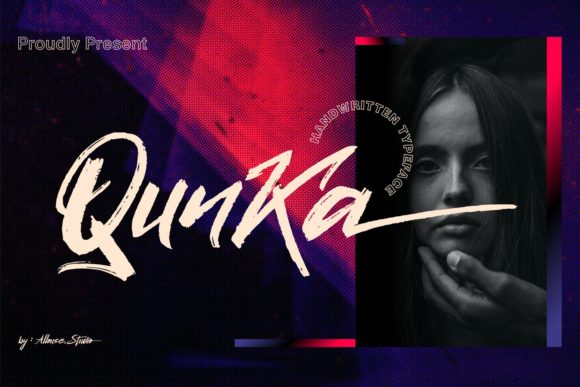
Unleash the Splendor of Your Designs with Qunka Font: A Timeless Handwritten Masterpiece
In a world clamoring for distinction, your designs deserve a voice that resonates with individuality and timeless charm. Enter Qunka Font, a brushed and dramatically alluring handwritten font that will ignite your creativity and leave an indelible mark on your audience.
Qunka's captivating strokes, inspired by the artistry of cursive writing, dance across the page with an elegance that is both enchanting and evocative. Its distinct character adds a touch of sophistication to any project, whether it's a captivating logo, an eye-catching poster, or an unforgettable invitation.
Indulge in the versatility of Qunka, a font that effortlessly adapts to a myriad of design styles. Its inherent charm shines through in both formal and informal settings, making it the perfect choice for projects ranging from wedding invitations to corporate presentations.
Step into a world of endless possibilities with Qunka. Unleash your imagination and craft designs that speak volumes. Whether you're a seasoned designer or just starting your creative journey, Qunka is the perfect companion, guiding you towards design excellence.
Don't settle for ordinary fonts that blend into the background. Embrace the power of Qunka, a font that commands attention and leaves a lasting impression. Its timeless beauty will elevate your designs to new heights, captivating your audience with its undeniable allure.
Join the ranks of creative visionaries who have discovered the magic of Qunka. Let your designs dance with elegance, intrigue with their uniqueness, and leave an unforgettable mark on the world.